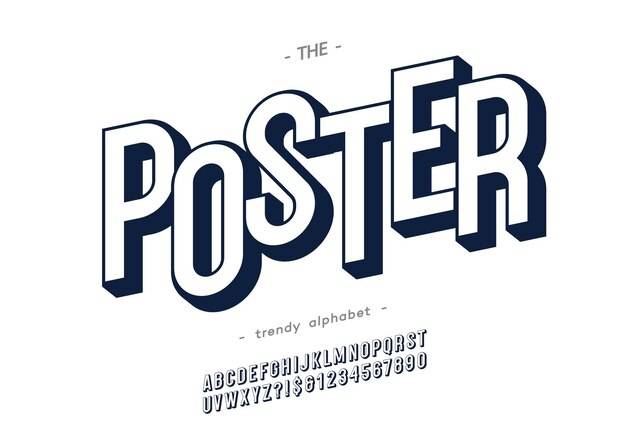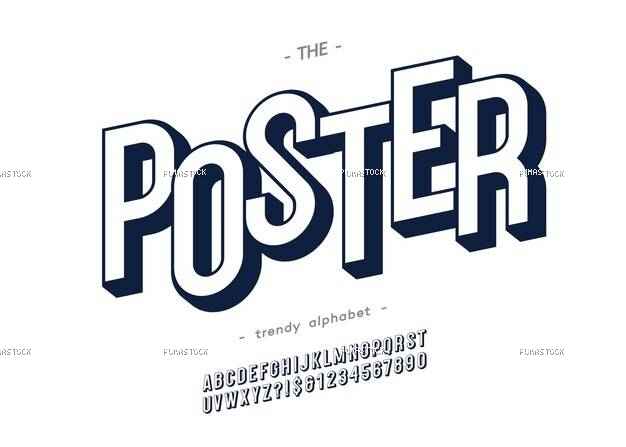
Vector bold poster alphabet modern typography sans serif 3d style for book promotion decoration t shirt sale banner printing on fabric cool font trendy typeface 10 eps